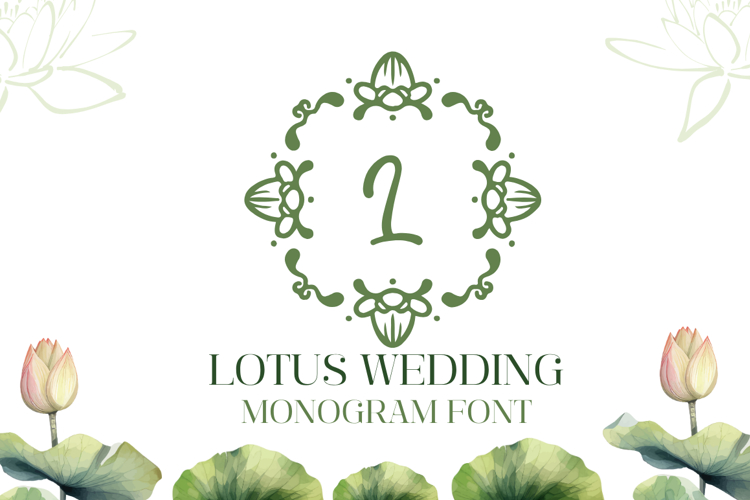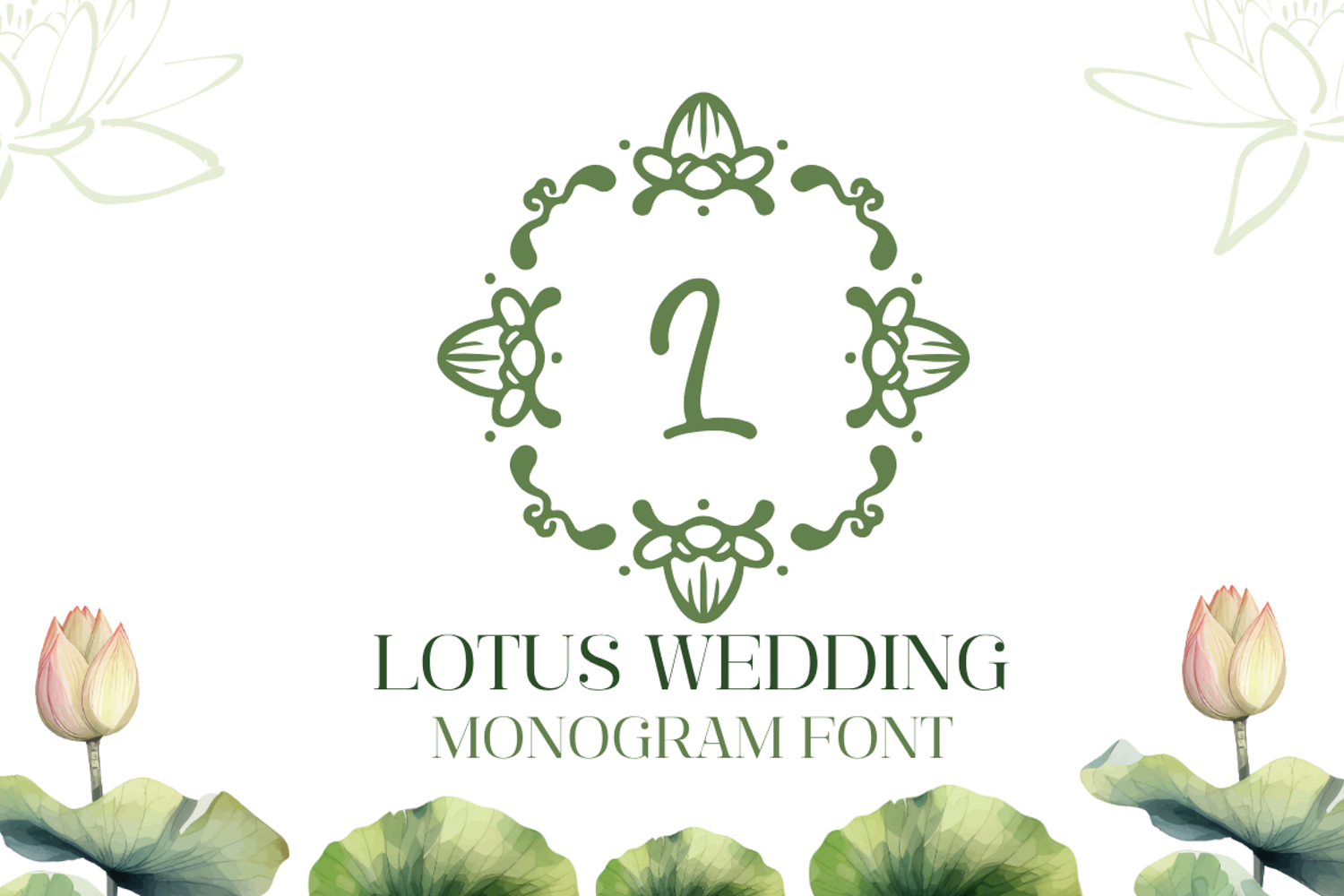
Lotus Wedding Monogram Font is a refined monogram typeface inspired by lotus motifs and botanical scrolls. It includes uppercase, lowercase, and numerals, plus coordinated monogram frames that surround a single initial for instant.
Want a frame without a letter? Type “.” or “,” to place the Monogram Frame Without Letter, then add your initial or wording later in your design software. The font converts to crisp vector outlines, scales cleanly from small labels to large signage, and is smooth for cutting and print-then-cut workflows.